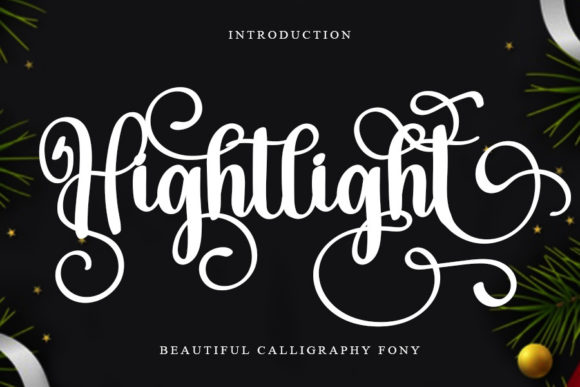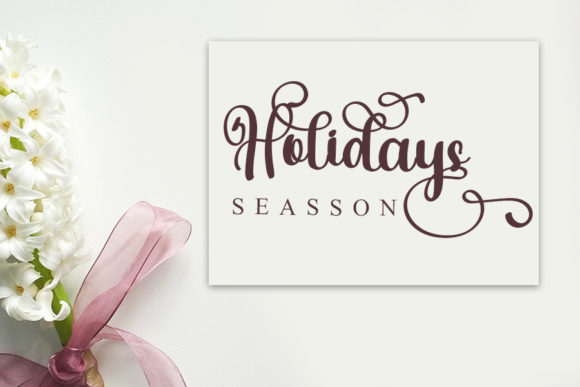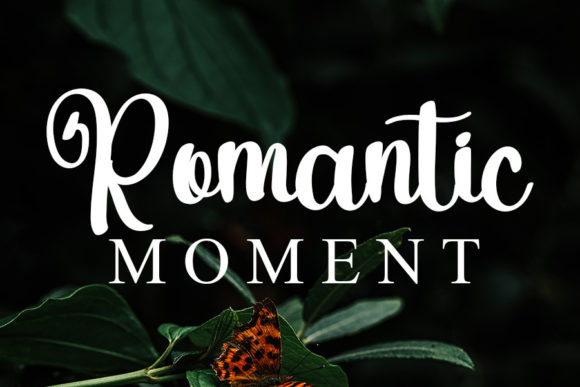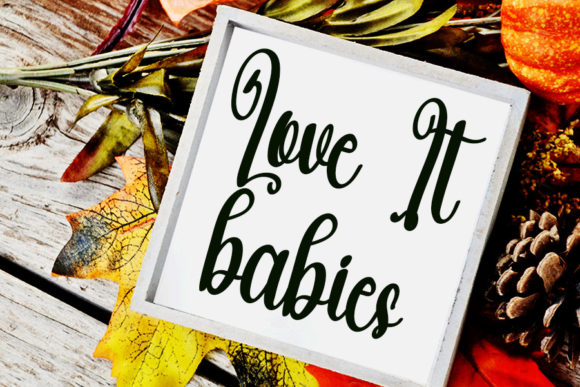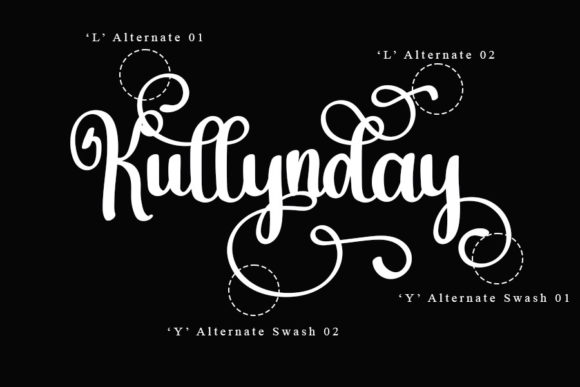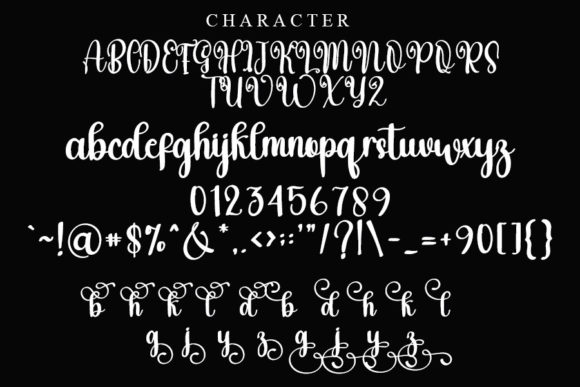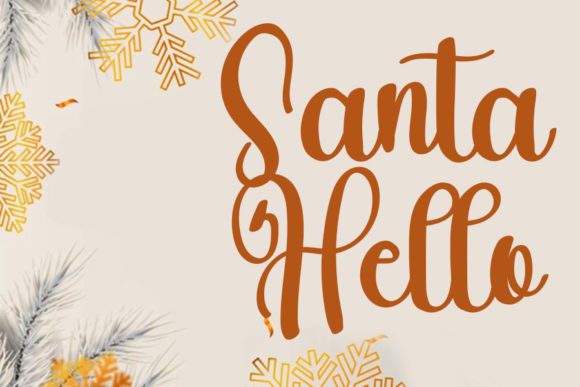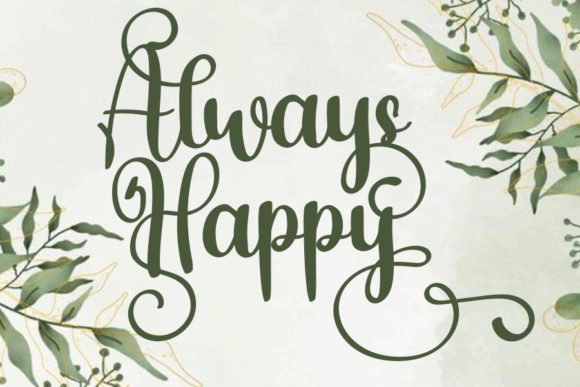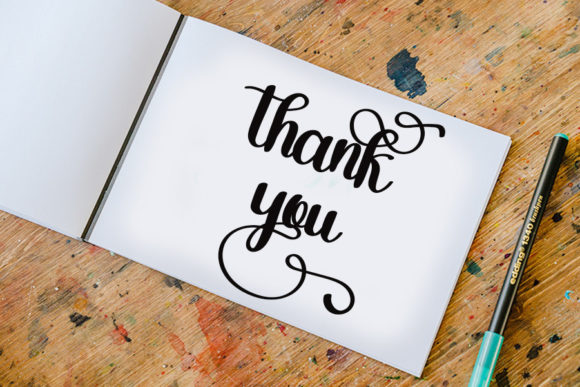
Hightlight Font
About Hightlight Font
Hightlight is an enchanting script font. It will add a luxury spark to any design project that you wish to create! This font is PUA encoded which means you can access all of the amazing glyphs and ligatures with ease!